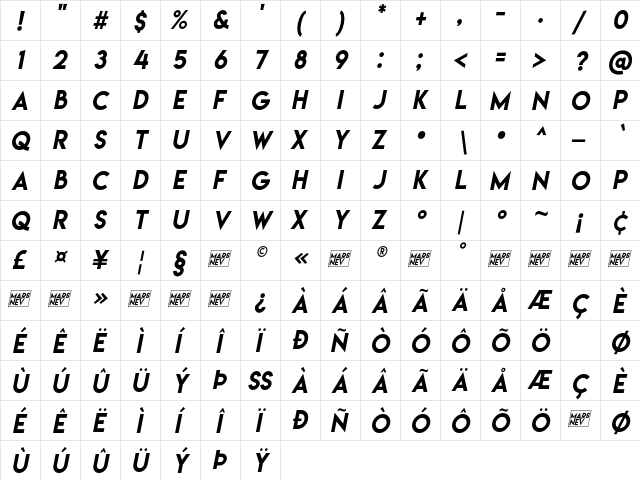
Lemon/Milk Regular italic
Design Context for Lemon/Milk Typeface
Lemon/Milk takes a measured approach to typography — its balanced proportions and neutral character make it a reliable workhorse for both digital and print work. The slanted form adds forward momentum and visual energy.